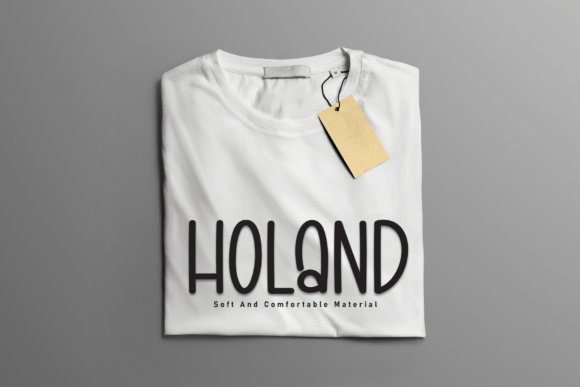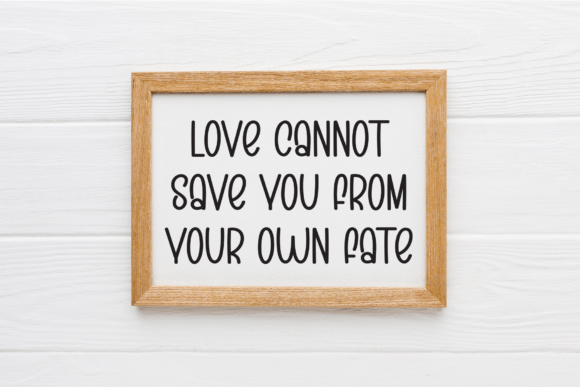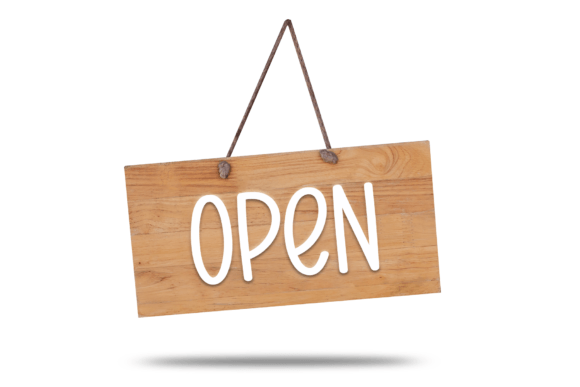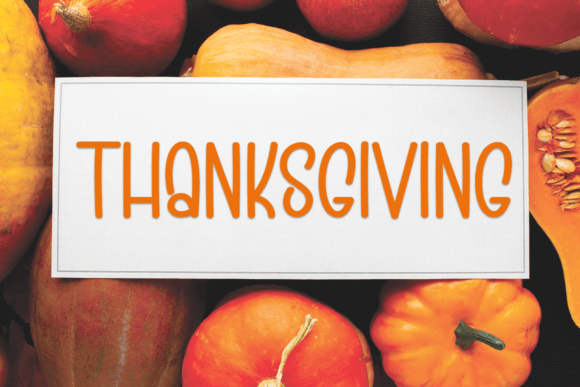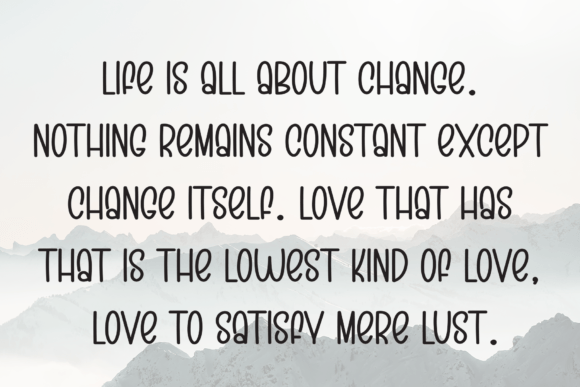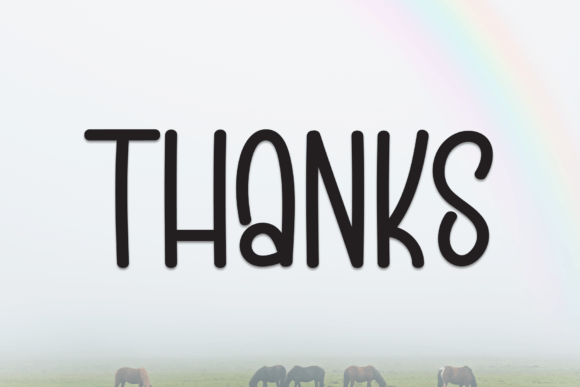
Introduction to Rustic Rainbow Font
Rustic Rainbow is a sweet and friendly handwritten font.
Key Features of Rustic Rainbow Font
Why Choose Rustic Rainbow Font?
Rustic Rainbow Font offers exceptional quality and versatility, making it a valuable addition to your design toolkit. Whether you’re creating for personal projects or commercial use, Rustic Rainbow Font delivers professional results.